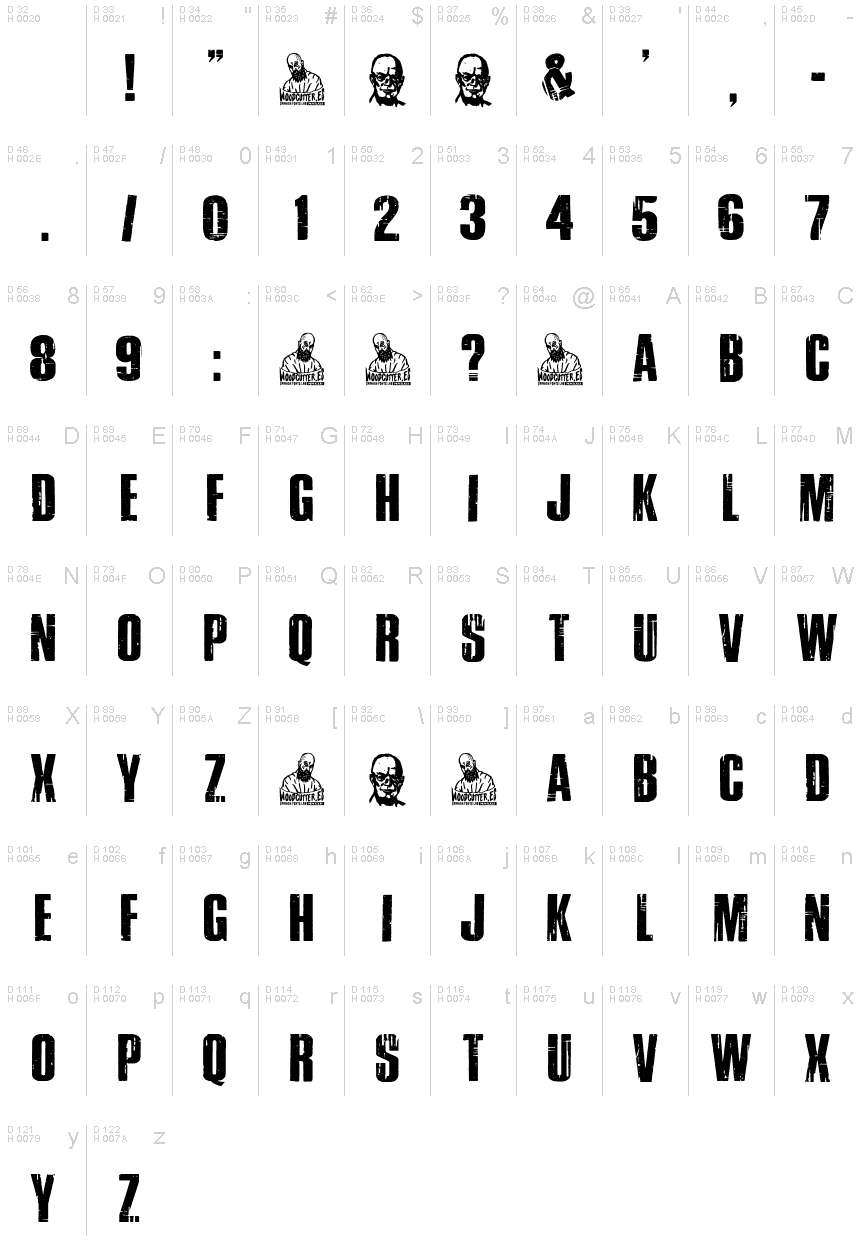
Eisenhower
Eisenhower, crafted by Woodcutter, is a striking display font with an eroded style that exudes boldness. Its extra-condensed width adds to its unique appeal, making it perfect for projects seeking a rugged and weathered aesthetic.
Whether you're designing vintage-inspired logos or creating eye-catching posters for music festivals, this font will add a touch of character and authenticity to your work.
Let Eisenhower bring an edgy vibe to your designs and captivate audiences with its raw charm.